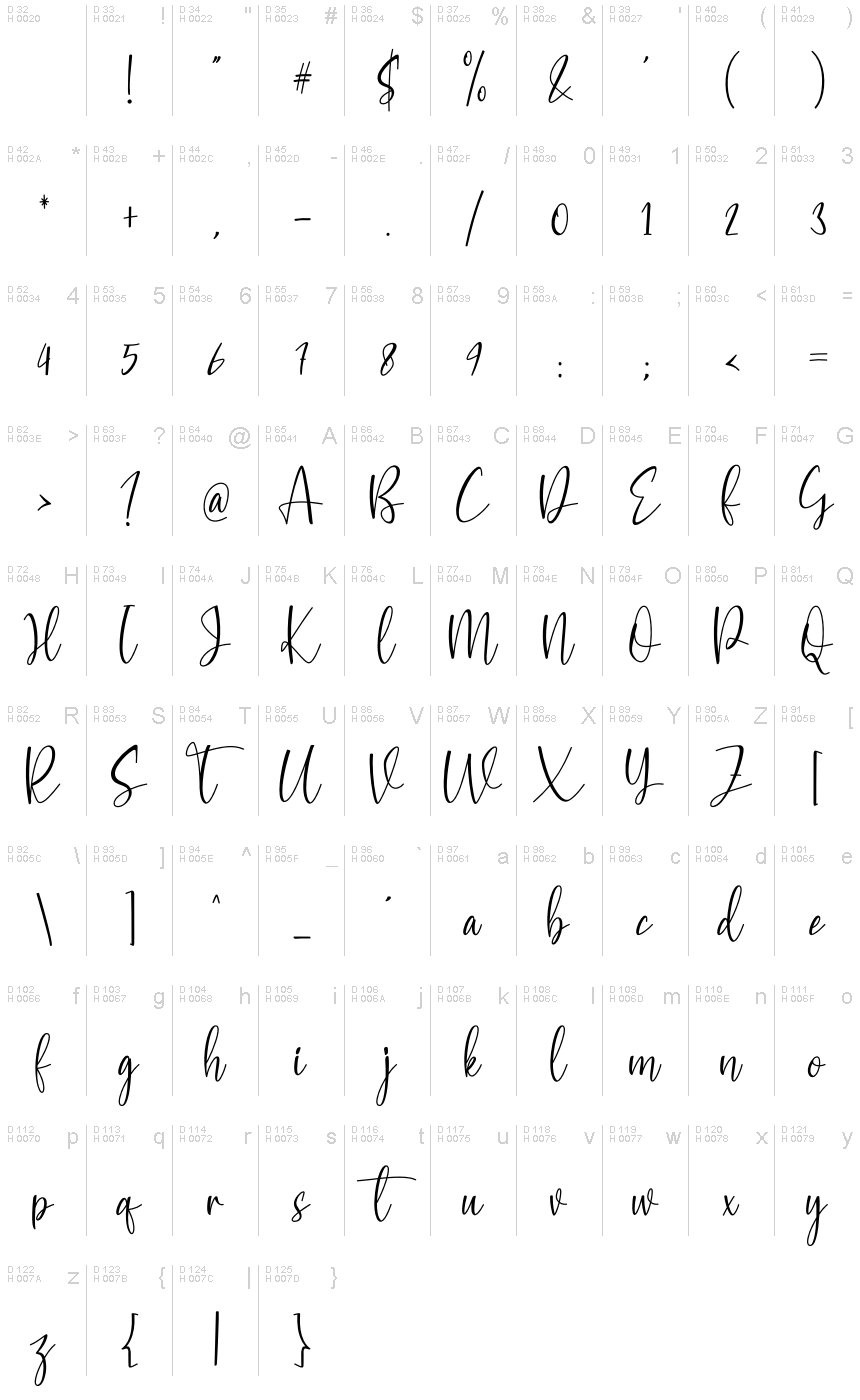
Hello Butter
Hello Butter font beautifully combines flowing elegance and modern script aesthetics. Designed by Scratchones, this free handwritten font exudes casual sophistication with its signature-like appearance. Its approachable design is versatile, effortlessly adapting to various creative themes and projects.
Use it in branding for lifestyle products, personal blogs, and fashion labels. Enhance digital interfaces, product packaging, or curate contemporary advertising campaigns targeting young adults. Perfect for logos, invitations, headings, signage, magazines, websites design and more!